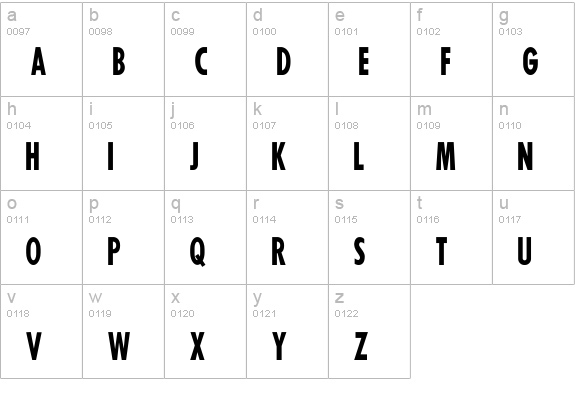
The Red Bull Leipzig 2021-22 font is an exciting and dynamic typeface that perfectly captures the energy and spirit of the renowned football club. With its bold and modern design, this font is sure to make a statement on any project or design. The sleek lines and sharp edges of the letters exude a sense of power and determination, reflecting the team's competitive nature on the field.